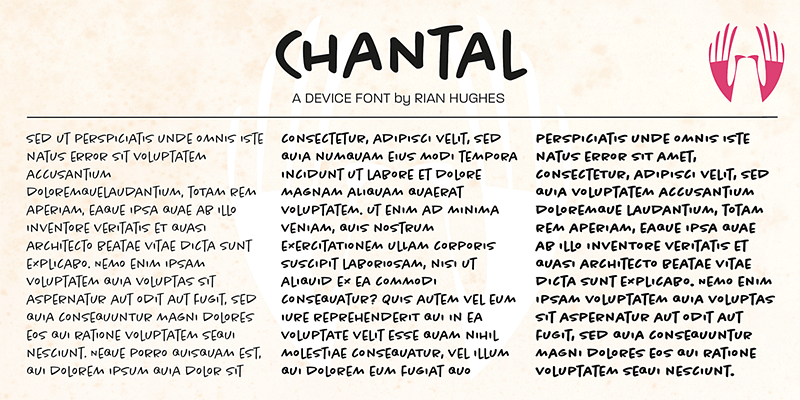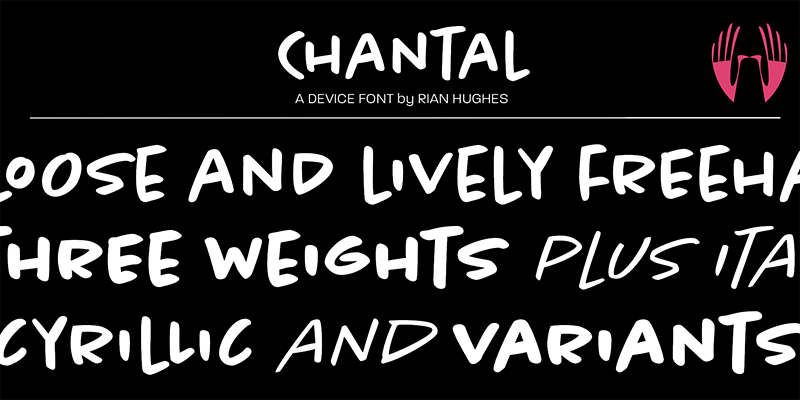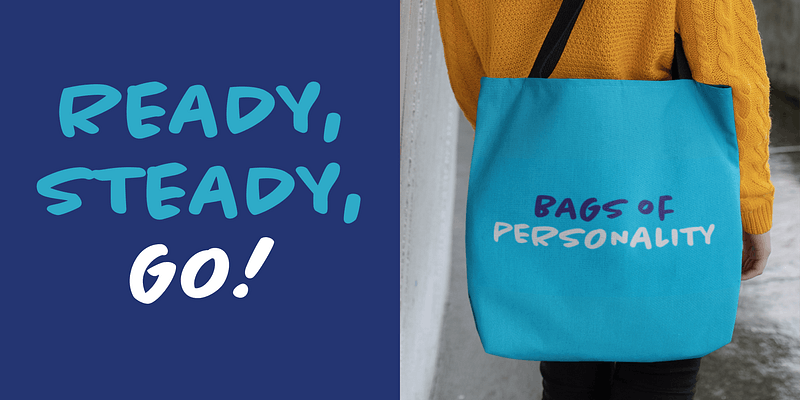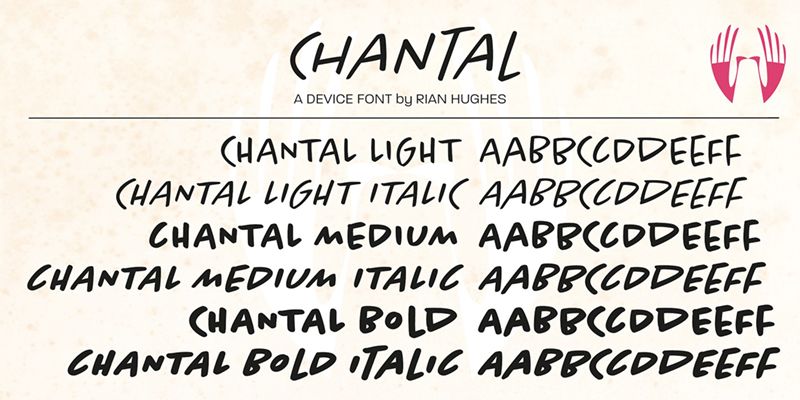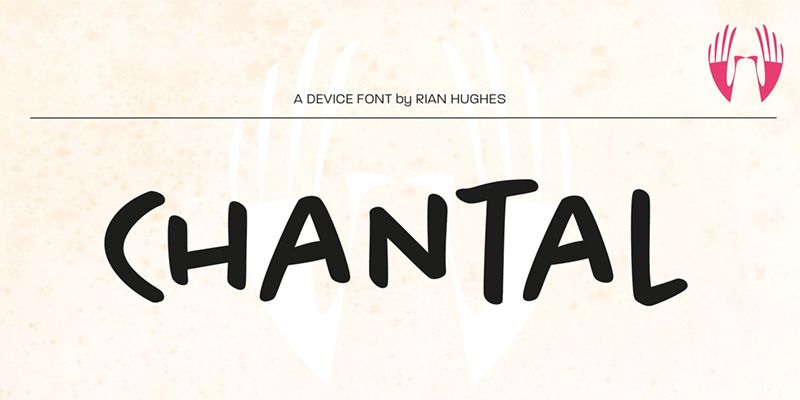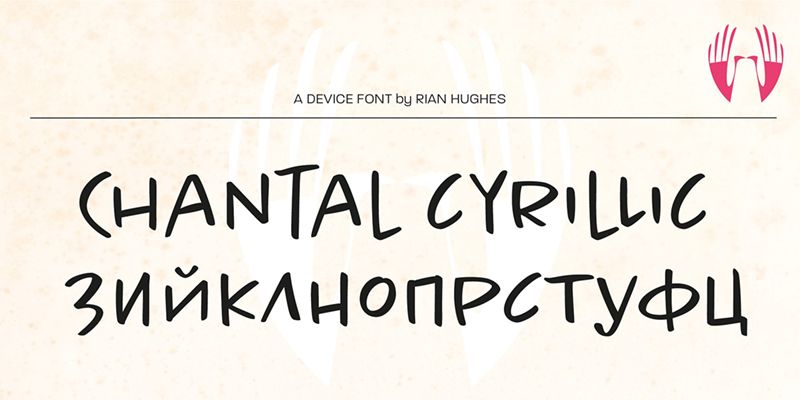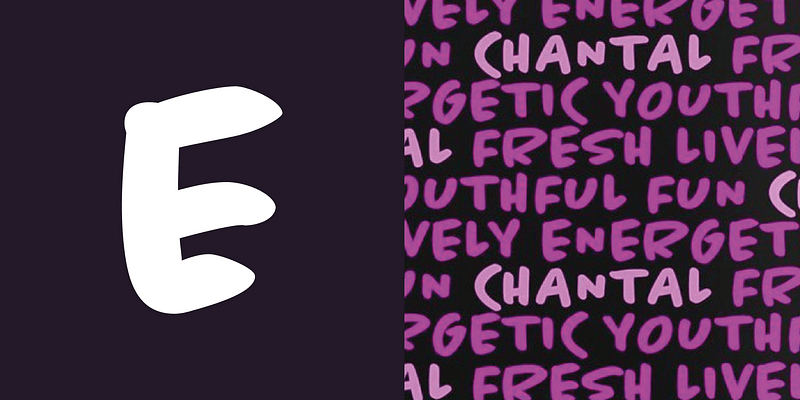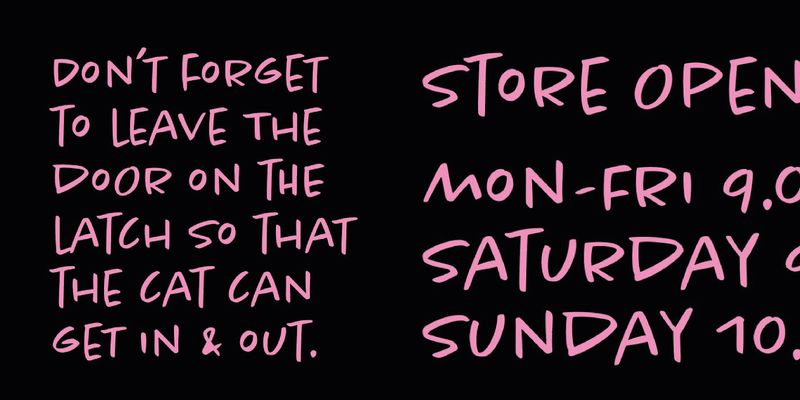
Chantal
A loose, energetic freehand font. Fresh, lively and direct. Also available in Cyrillic.
Type, design and imagery by English illustrator and typographer Rian Hughes.